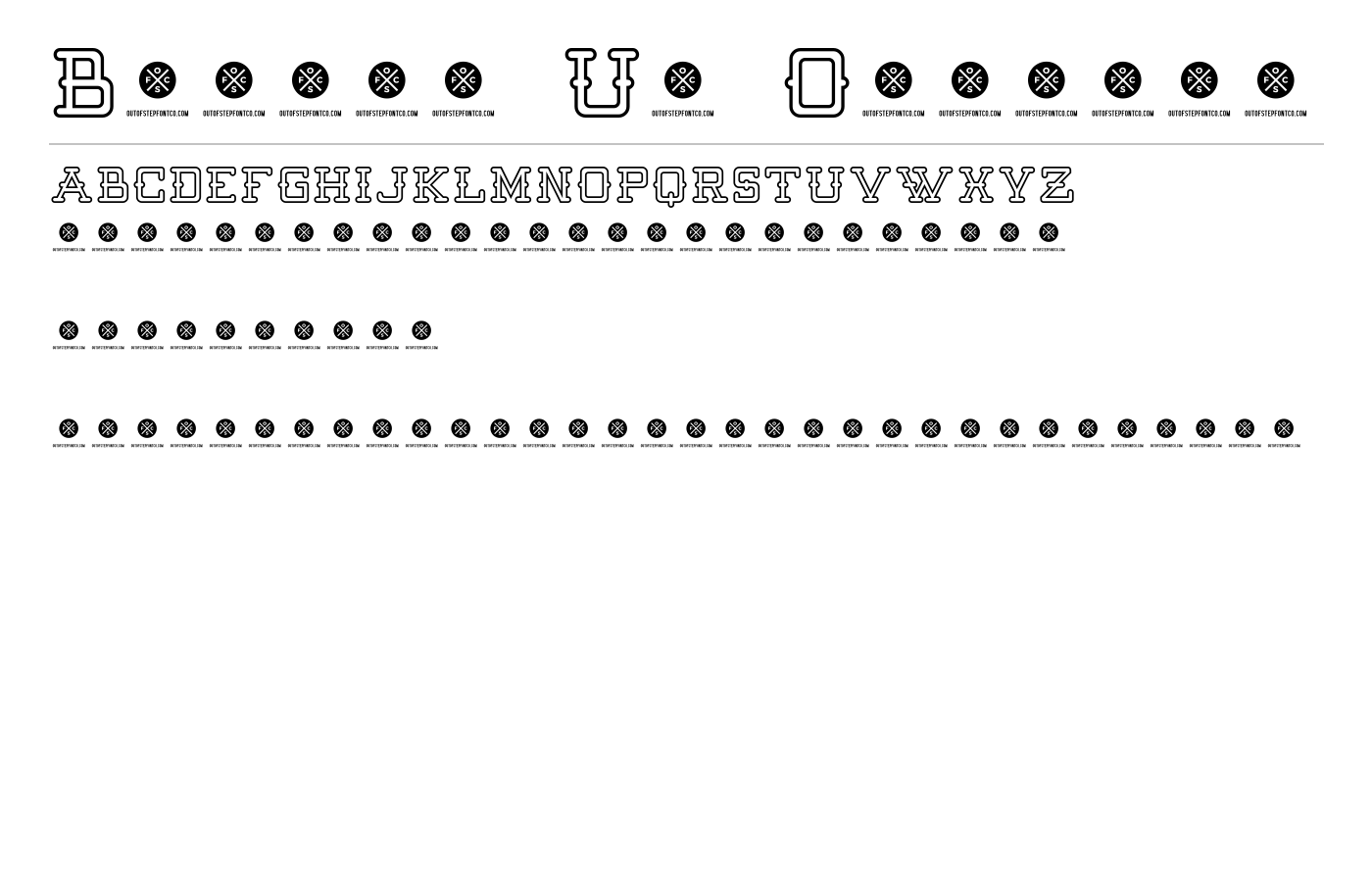
Batter Up Outline Font is a bold, outlined slab serif typeface with a playful, sporty vibe reminiscent of vintage baseball lettering. Its strong, blocky letterforms have prominent slab serifs and clear, open shapes that make it ideal for eye-catching headlines, logos, and athletic-themed designs where a classic yet fun style is desired. This font works especially well in branding and posters that need a bold, energetic impact with a retro flair.
Batter Up Outline Font
About Batter Up Outline Font
| Font family | Batter Up Outline Font |
| Designer | Out of Step Font Company |